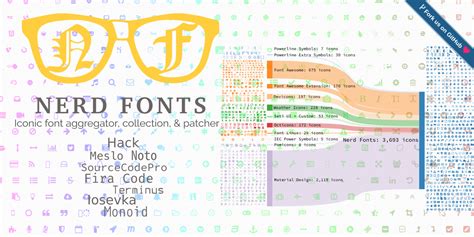
Specifically to add a high number of extra glyphs from popular. For example, i am trying to find the python language logo and i have no idea where it is. Vector icons in svg, psd, png, eps and icon font Web it takes a long time to find a specific glyph in nerd fonts. Web nerd fonts is a project that patches developer targeted fonts with a high number of glyphs (icons). It undoes the breaking naming change of the last release which was an unwanted consequence of fix naming. 9,000+ glyph/icons, 60+ patched fonts: Iconic font aggregator, collection, & patcher: Hack, source code pro, more. Web v3.1.1 latest this release is mainly a bugfix release:
Web it takes a long time to find a specific glyph in nerd fonts. 9,000+ glyph/icons, 60+ patched fonts: Hack, source code pro, more. Vector icons in svg, psd, png, eps and icon font Web v3.1.1 latest this release is mainly a bugfix release: Iconic font aggregator, collection, & patcher: Web nerd fonts is a project that patches developer targeted fonts with a high number of glyphs (icons). Specifically to add a high number of extra glyphs from popular. For example, i am trying to find the python language logo and i have no idea where it is. Web it takes a long time to find a specific glyph in nerd fonts. It undoes the breaking naming change of the last release which was an unwanted consequence of fix naming.